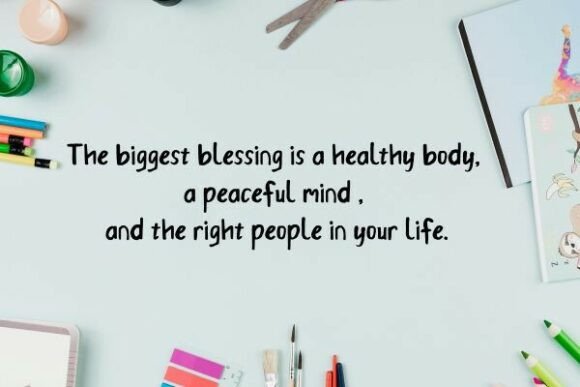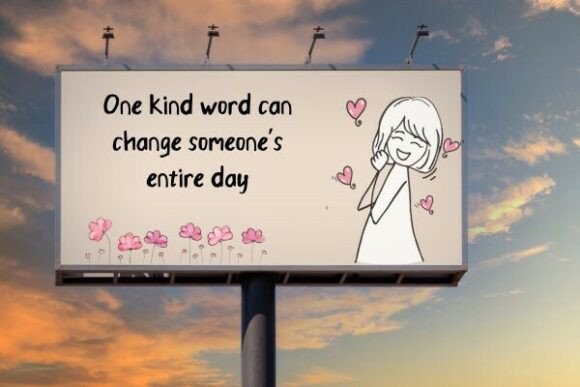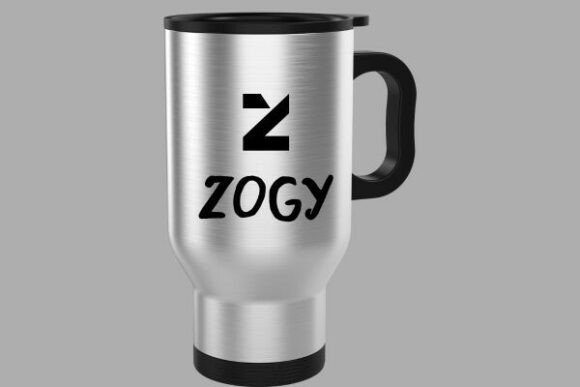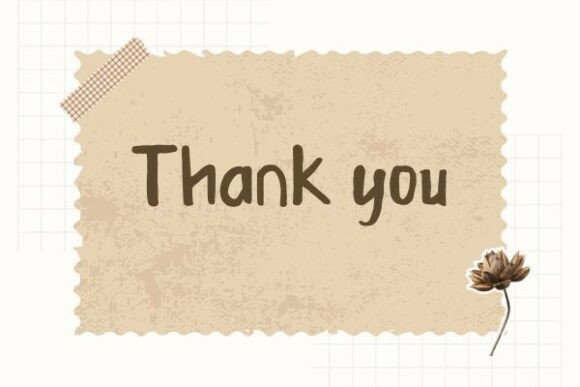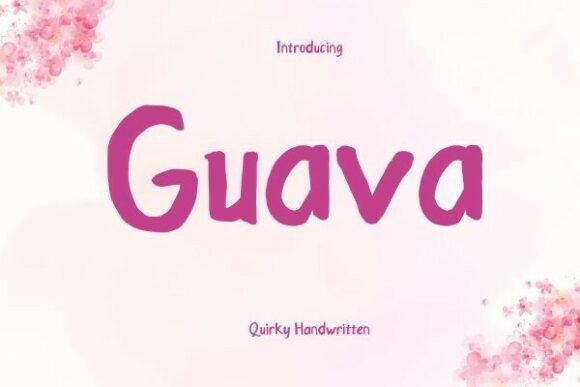
Introducing Guava: The Perfect Handwritten Font for Your Design Projects
Are you a designer or crafter looking for a font that can elevate your projects to the next level? Look no further than Guava, a beautifully simple handwritten font that is perfect for a wide range of design applications. From t-shirt designs to wall decorations, Guava’s elegant and personalized charm makes it an ideal choice for anyone looking to add a touch of sophistication to their creations.
The Versatility of Guava
One of the best things about Guava is its versatility. This font is perfectly suited for a plethora of design projects, including:
• T-shirt designs: Add a touch of elegance to your apparel designs with Guava’s beautiful handwritten script.
• Ornate coffee mugs: Make your coffee mugs stand out with Guava’s unique and personalized charm.
• Trendy tote bags: Add a touch of sophistication to your tote bag designs with Guava’s elegant font.
• Chic wall decorations: Create stunning wall art with Guava’s beautiful handwritten script.
• Mockups: Use Guava to add a touch of elegance to your mockups and make them stand out.
The Elegance of Guava
Guava’s elegance is one of its standout features. This font has a unique and personalized charm that adds an air of sophistication to any design project. Whether you’re creating a simple t-shirt design or a complex wall decoration, Guava’s elegant script is sure to impress.
One of the reasons Guava is so elegant is its simplicity. This font is beautifully simple, with a clean and uncluttered design that makes it easy to read and understand. At the same time, Guava’s simplicity also gives it a unique and stylish charm that sets it apart from other fonts.
Why Choose Guava?
So why choose Guava for your design projects? Here are just a few reasons:
• Unique and personalized charm: Guava’s elegant script adds a touch of sophistication and personalized charm to any design project.
• Versatile: Guava is perfect for a wide range of design applications, from t-shirt designs to wall decorations.
• Elegant and simple: Guava’s beautifully simple design makes it easy to read and understand, while its elegance adds a touch of sophistication to any design project.
• Easy to use: Guava is easy to use and can be incorporated into a wide range of design projects, from digital designs to print projects.
Tips for Using Guava
Here are a few tips for using Guava in your design projects:
• Use Guava as a headline font: Guava’s elegant script makes it perfect for use as a headline font in your designs.
• Pair Guava with other fonts: Guava can be paired with other fonts to create a unique and stylish design.
• Experiment with different colors: Guava looks great in a wide range of colors, so don’t be afraid to experiment and find the perfect color for your design.
• Use Guava in digital and print projects: Guava is perfect for use in both digital and print projects, from social media graphics to business cards.
In conclusion, Guava is a beautifully simple handwritten font that is perfect for a wide range of design projects. Its elegance and personalized charm make it an ideal choice for designers and crafters looking to add a touch of sophistication to their creations. With its versatility, ease of use, and unique charm, Guava is sure to become a favorite font in your design arsenal.